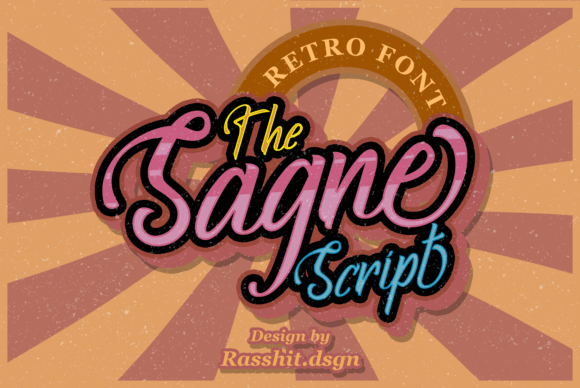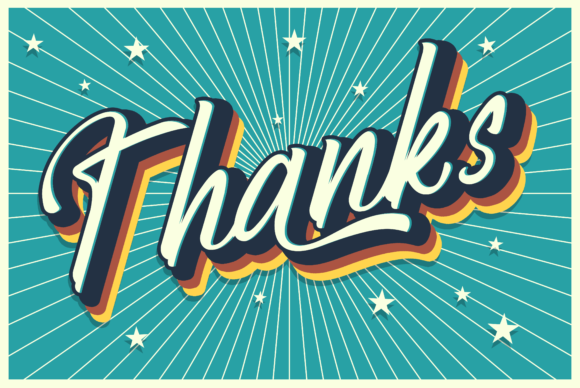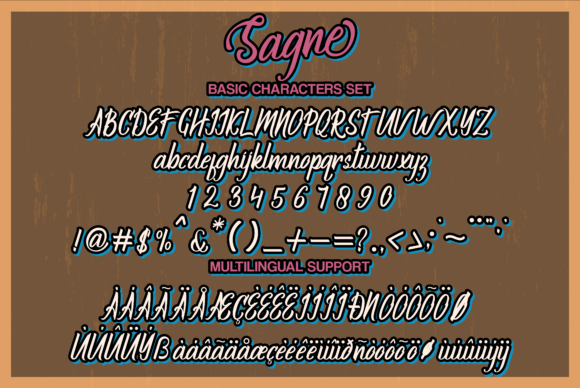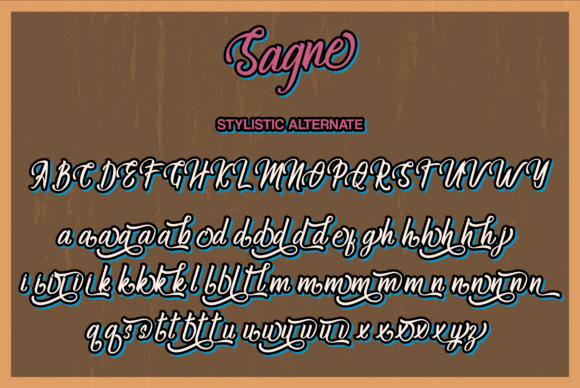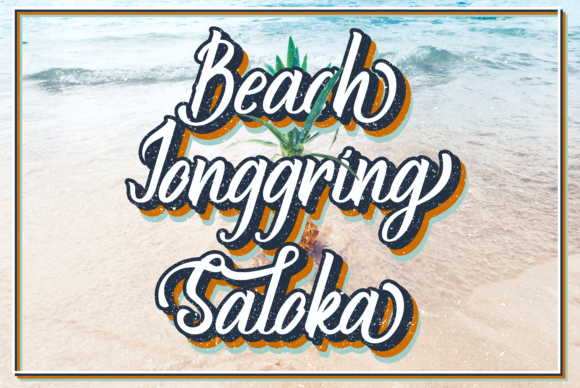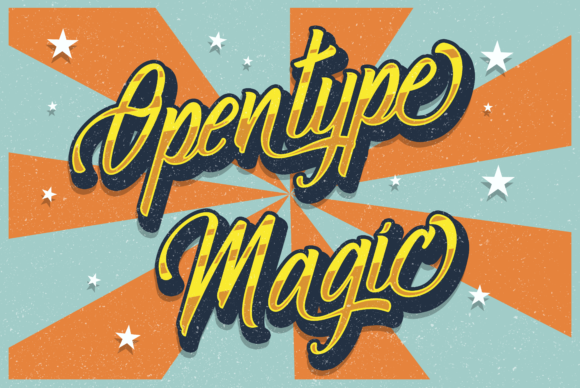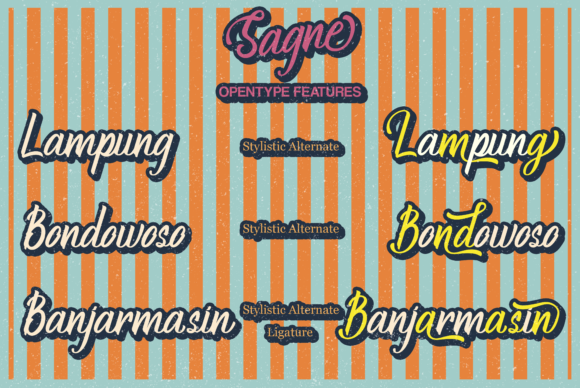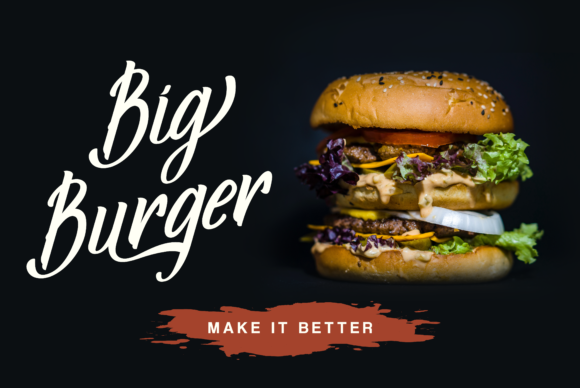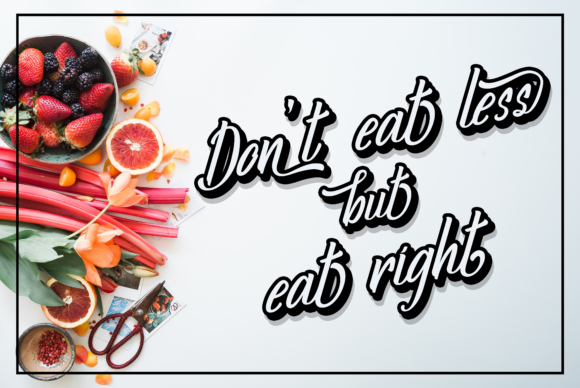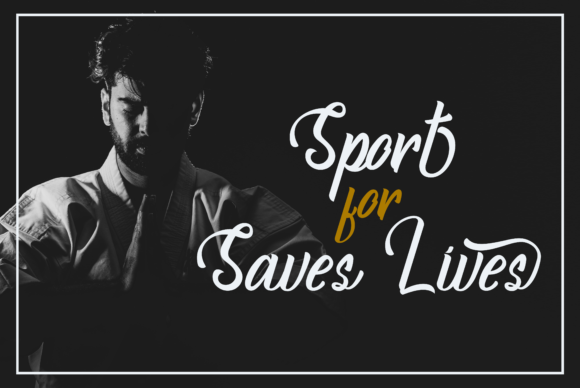
Sagne Font
About Sagne Font
Sagne is a powerful and bold vintage script with incredible hand-lettering. Use it to add a retro touch to any design project!